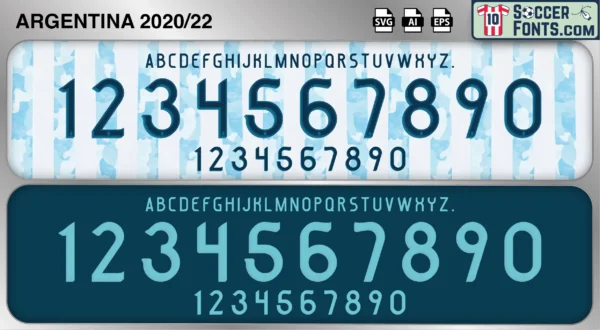
Argentina 2020-22 Font
The Argentina 2020-22 font is an editable soccer jersey lettering design in vector format inspired by the Argentina kit style used during the 2020-22 football seasons. This football font artwork is prepared for football shirt recreations, custom jersey projects, football kit mockups and sports graphic design workflows.
The 2020-22 period became one of the most celebrated eras in the history of Argentine football. Under Lionel Scaloni, Argentina developed into a cohesive and highly competitive national team featuring Lionel Messi, Ángel Di María, Emiliano Martínez, Rodrigo De Paul, Lautaro Martínez and Cristian Romero. The era reached a historic milestone when Argentina won the 2021 Copa América, defeating Brazil in the final at the Maracanã to secure the nation’s first major senior international trophy since 1993. The victory represented a defining moment for Messi and a generation of players who had repeatedly come close to international success.
The Argentina 2020-22 font became associated with the rebirth of Argentine football and the beginning of a remarkable championship cycle. Argentina shirts from this era remain especially popular among football shirt collectors because of their connection with the Copa América triumph and the emotional scenes that followed one of the most important victories in the nation’s football history. The Argentina 2020-22 font reflects a period when Argentina rediscovered its winning identity and laid the foundations for even greater achievements on the world stage, creating memories that remain deeply significant for supporters around the globe.